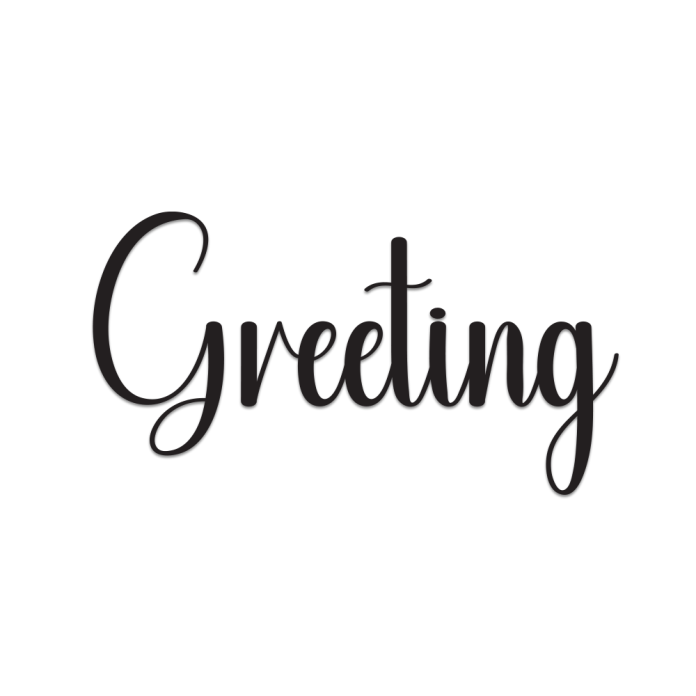
Greeting is a graceful and heartfelt handwritten font that captures the warmth and sincerity of a handwritten message. With its soft curves and smooth flow, this font is perfect for adding a personal and elegant touch to any project.
Whether you're designing invitations, thank-you cards, journals, or branding materials, Greeting brings charm and personality with every letter.
Clean, flowing handwritten script
Ideal for greeting cards, wedding stationery, and blogs
Express yourself with elegance and warmth using Greeting — the font that feels like a handwritten hug.